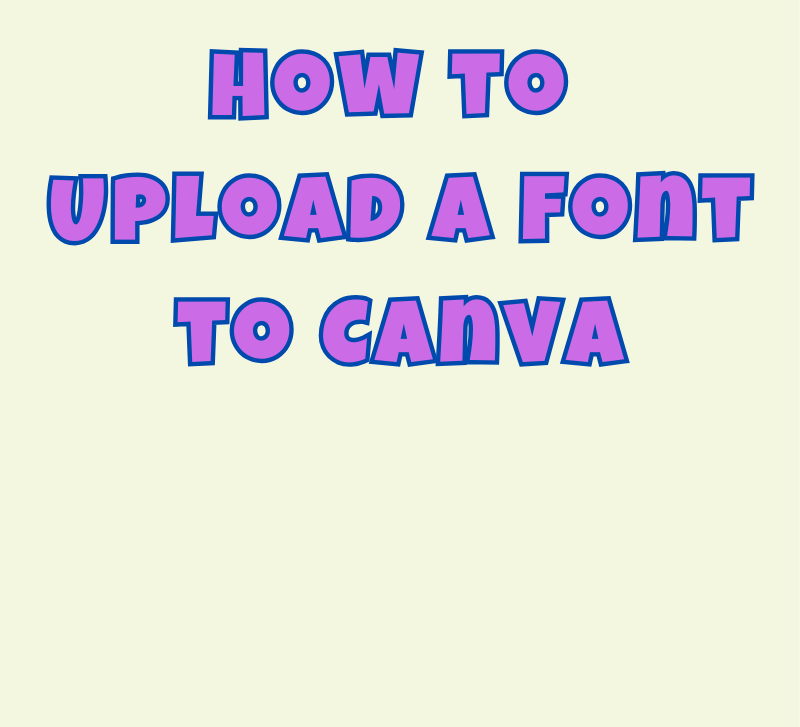
How to Upload a Font to Canva – Simple Guide
Canva is one of the best tools for creating stunning graphics, whether for school projects, social media, or just for fun.
But sometimes, the default fonts in Canva might not match your style or vision. That’s where custom fonts come in!
Uploading a font to Canva is super simple and gives you the freedom to express your creativity even more. Let’s break it down step by step.
What Do You Need Before Uploading a Font?
Before you can upload a font to Canva, you’ll need a few things ready:
2. The Font File: Fonts come in file formats like .TTF (TrueType Font) or .OTF (OpenType Font). Make sure you download the font you want from a trusted website or make your own font.
If you’ve got these two things, you’re all set to upload your font.
Where to Find Fonts for Canva
Not sure where to get custom fonts? Here are some popular places to download them:
When you download a font, it’s usually zipped. Don’t forget to unzip the file before trying to upload it to Canva.
How to Upload a Font to Canva in 4 Simple Steps
Now, let’s see how to upload a font to Canva.
Step 1: Log in to Canva
First, go to the Canva website and log in to your account. If you’re using the iPhone mobile app, make sure you’re signed in with a Canva Pro account.
This is crucial because uploading fonts won’t work on a free plan.
Step 2: Access the Brand Kit
The Brand Kit is like a toolbox where you can store all your branding elements, including fonts, colors, and logos. To find it:
1. Look for the sidebar menu on the Canva homepage.
2. Click on “Brand” or “Brand Kit” depending on your version.
This section is only available to Canva Pro users. If you don’t see the Brand Kit option, double-check your subscription status.
Step 3: Upload Your Font
Now, it’s time for the fun part – uploading your font!
1. Inside the Brand Kit, scroll down to the “Brand Fonts” section.
2. Click on the “Upload a Font” button.
3. Navigate to where your font file is stored on your device. Select the file and click Open.
Step 4: Test Your Font
Once uploaded, your font will appear in the Brand Fonts section. To make sure it works:
1. Open a new Canva project.
2. Select the text tool and click the font dropdown menu.
3. Scroll through the list to find your newly uploaded font.
Click on it, type something, and check if it displays correctly. If it does, congrats! You’ve successfully added a custom font to Canva.
Troubleshooting Common Issues
Sometimes things don’t go as smoothly as we’d like. Here are a few common problems and how to fix them:
• Font Not Uploading: Make sure the file is in .TTF or .OTF format. If it’s not, convert it using an online tool.
• Font Not Showing Up: Refresh your browser or app to update the font list.
• Font License Issues: Double-check the font’s terms of use. Some fonts are for personal use only, while others require a commercial license.
Why Use Custom Fonts in Canva?
Using custom fonts can really make your designs stand out. Here’s why they’re worth considering:
• Brand Consistency: If you’re creating materials for a business or personal brand, custom fonts help keep everything cohesive.
• Unique Designs: With so many people using Canva, custom fonts can make your projects feel less generic.
• Personal Expression: Sometimes, you just want something that feels more “you.”
For example, if you’re working on a school project about ancient history, you could use a font that looks like handwriting or stone carvings to match the theme.
Tips for Choosing the Right Fonts
Picking the right font can make or break your design. Here are some tips to help:
• Match the Mood: Choose fonts that fit the tone of your project. A playful font works great for kids’ designs, while a sleek, modern font is perfect for professional work.
• Keep It Simple: Avoid using too many different fonts in one design. Two to three fonts are usually enough.
• Check Legibility: Make sure your font is easy to read, especially if you’re using it for small text.
How to Organize Fonts in Canva
If you upload several fonts, keeping them organized will save you time later.
Canva doesn’t let you create folders for fonts, but you can add them to your Brand Kit. Use clear names for your fonts so they’re easy to find.
Conclusion
Uploading a font to Canva might seem like a small feature, but it can make a big difference in your designs.
Whether you’re creating a birthday card, a school poster, or a professional presentation, custom fonts give you more control over how your project looks and feels.
With these steps, you’ll be ready to level up your Canva game in no time!